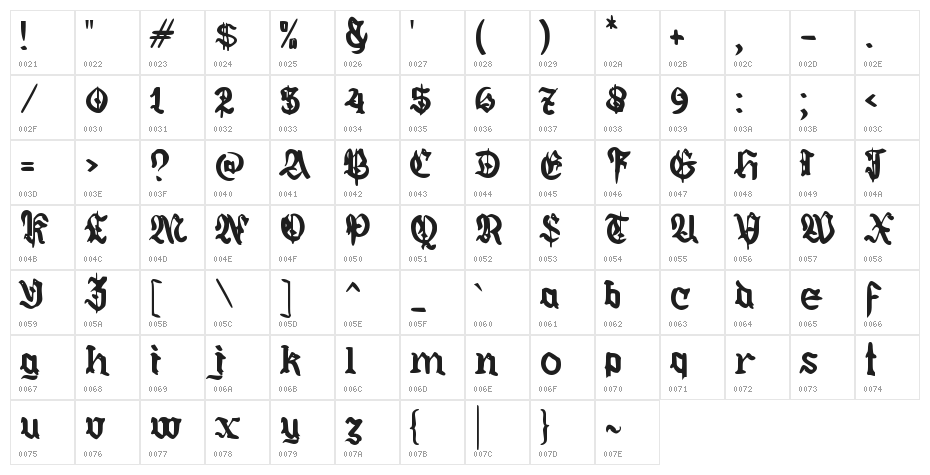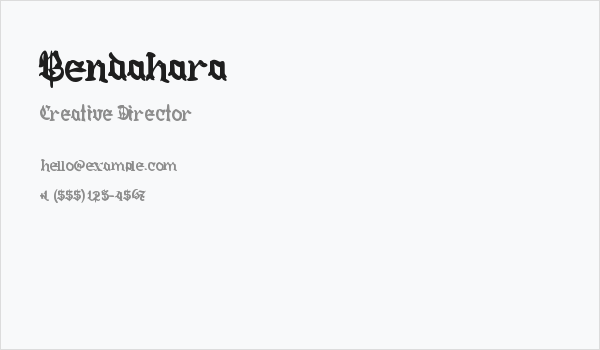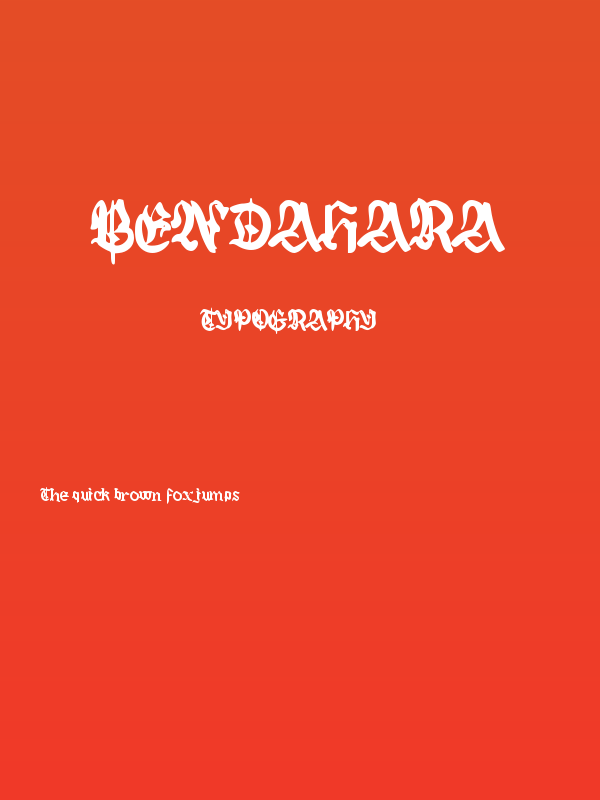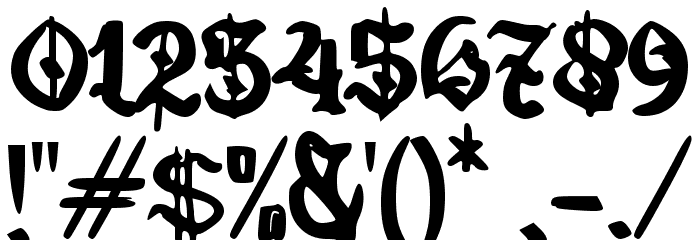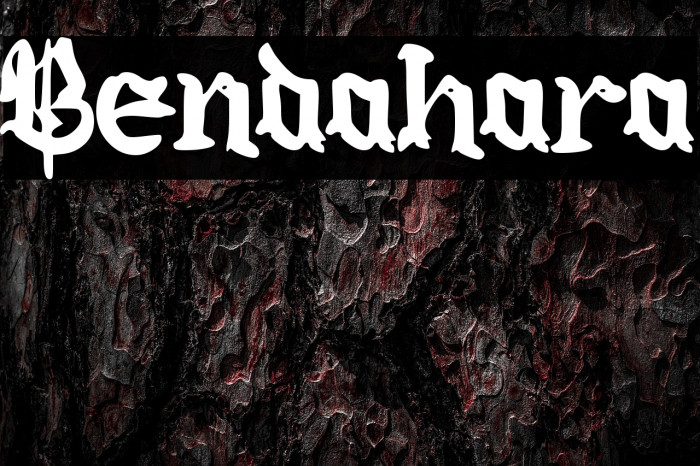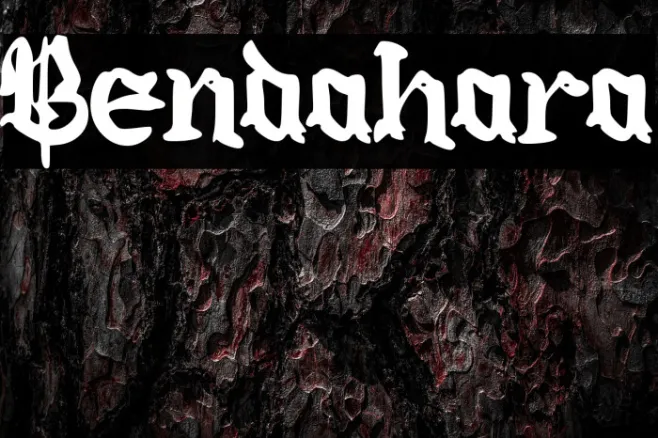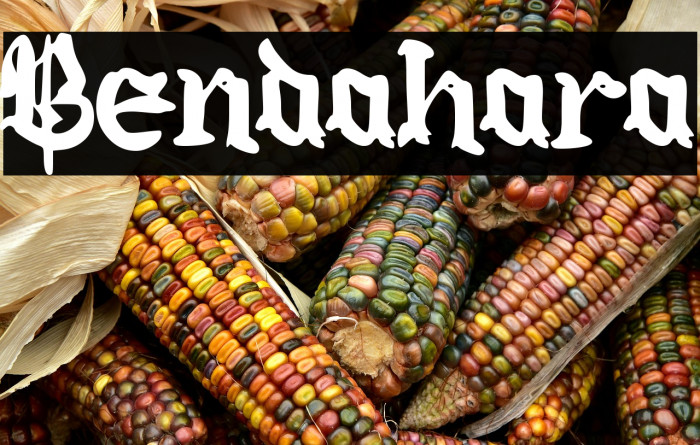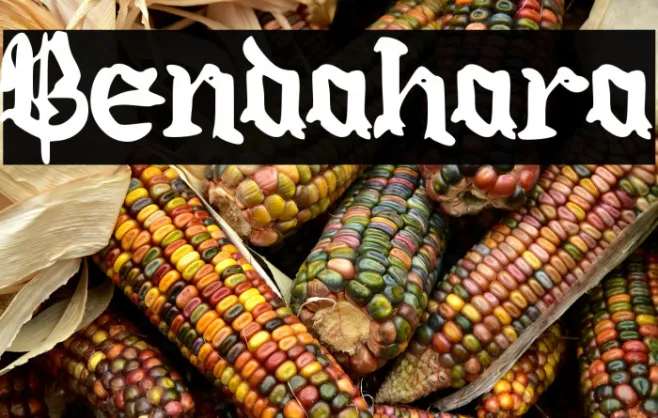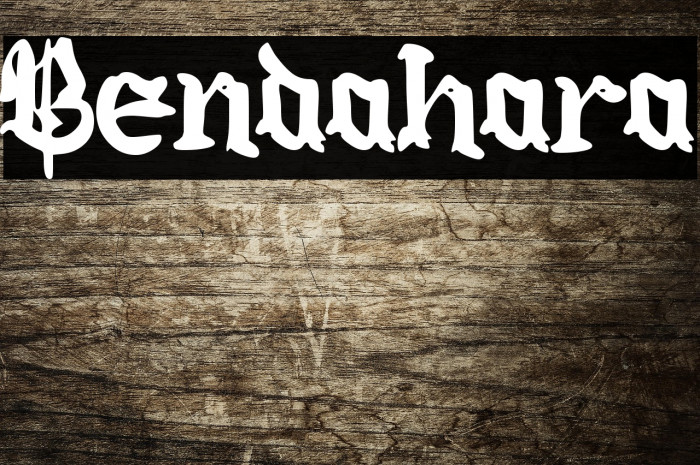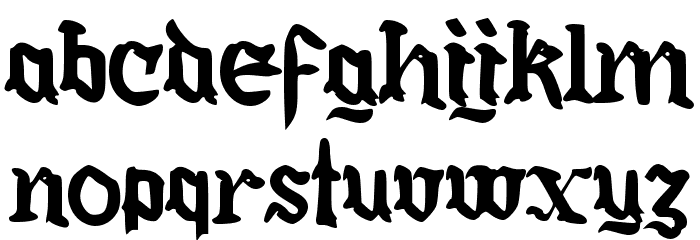
Bendahara Font
Bendahara Description
This font features a bold and striking blackletter style, reminiscent of traditional Gothic script. The characters are intricately designed with sharp, angular edges and dramatic flourishes, giving it a historic and authoritative appearance. The uppercase letters are particularly ornate, with elaborate serifs and decorative elements that enhance their visual impact. The lowercase letters maintain the same gothic aesthetic, with consistent thickness and style. The numerals and special characters are equally detailed, ensuring a cohesive look across all text elements. This font is ideal for projects that require a medieval or vintage touch, such as historical documents, themed events, or artistic designs.
| Proposed Projects | Ideal for historical documents, themed events, artistic designs, and vintage-inspired projects. |